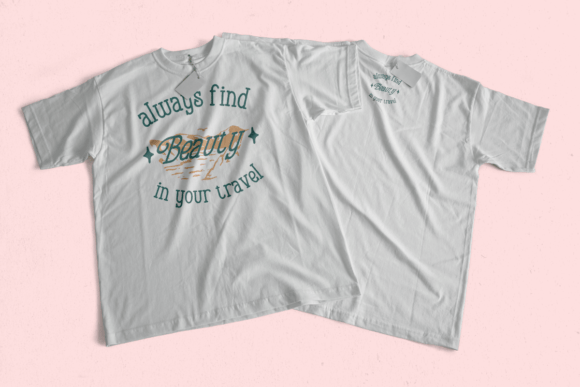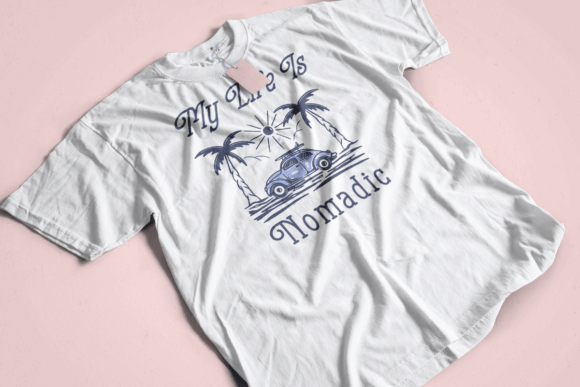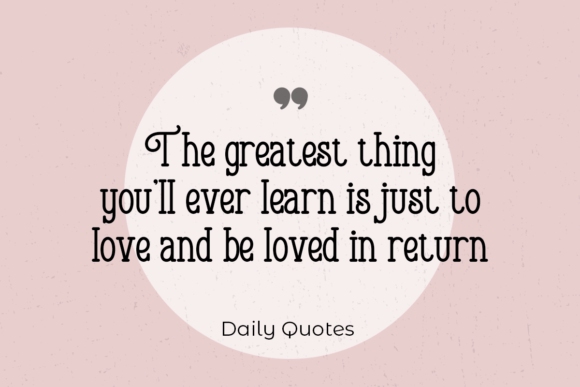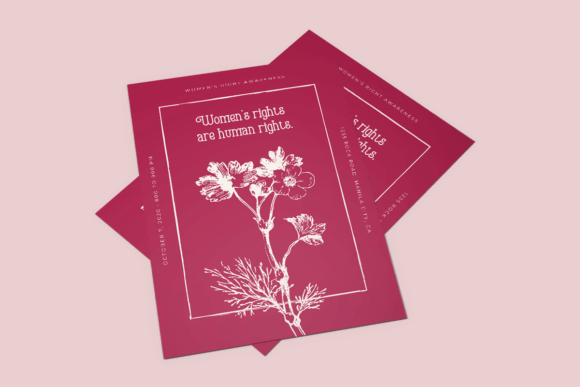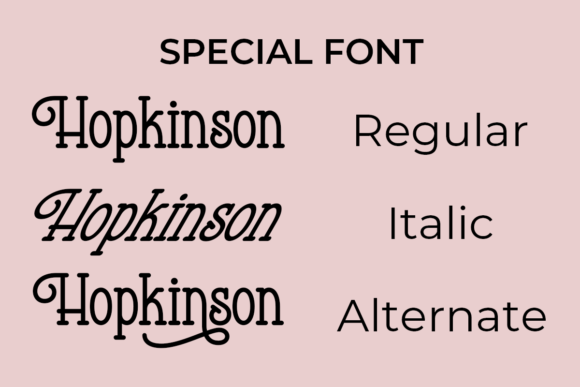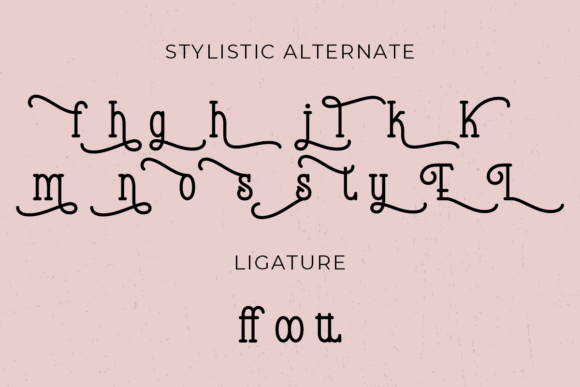
The Perfect Blend of Casual and Sophisticated: Introducing the Hopkinson Font
Have you ever stumbled upon a font that makes you feel like you’re home? For designers, finding the right font can be a game-changer. It’s that moment when you’re working on a project, and the perfect typography just clicks – and that’s exactly what happens when you meet the Hopkinson Font.
This charming contemporary serif font is hand-drawn to give it a casual, playful feel that’s perfect for branding projects, photography, and blog posts. The friendly, open lines and curves of the Hopkinson Font make it a valuable addition to any designer’s toolkit, allowing them to add a touch of personality to their work. With its PUA encoding, accessing all the glyphs and ligatures is a breeze, making it a great choice for designers looking to elevate their projects.
Hopkinson Font Key Features
- Font Family: Hopkinson is a serif font family designed for body text and display use. It is available in a range of weights and styles.
- Character Set: The font includes a comprehensive character set, including Latin, Greek, and Cyrillic alphabets, as well as punctuation and symbols.
- Size and Resolution: Hopkinson Font is designed for use at a range of sizes, from 8pt to 24pt, and is suitable for use at resolutions up to 1200 dpi.
- Unique Characteristics: Hopkinson Font features a distinctive, elegant design with refined details and subtle flair, making it suitable for use in high-end publications and designs.
Hopkinson Font Review
As a designer, I was excited to try out the Hopkinson font. In my experience, it has both its strengths and weaknesses, which I’ll outline below.
- Unique aesthetic: Hopkinson has a distinct, quirky feel that sets it apart from more traditional fonts. This can be a great choice for designers looking to add some personality to their work.
- Good legibility: While not perfect, the font is generally easy to read, even at smaller sizes.
- Large character set: Hopkinson includes a wide range of characters, including accented letters and symbols, making it a good choice for international projects.
- Limited line spacing: The font’s condensed nature can make it difficult to fit text into smaller spaces.
- Not ideal for body text: While Hopkinson can work well for headlines and titles, it’s not the best choice for larger blocks of text due to its quirky feel and limited legibility.
- May not be suitable for all audiences: The font’s unique aesthetic may not appeal to all users, particularly those who prefer more traditional or conservative typography.
Overall impression
Hopkinson is a fun, quirky font that can be a great choice for designers looking to add some personality to their work. However, it’s not a one-size-fits-all solution, and its limitations should be carefully considered before using it for larger projects or audiences.
Tips for Getting the Most Out of Hopkinson Font
Here are some tips to help you get the most out of Hopkinson Font:
- Use Hopkinson Font for headings and titles to add a touch of elegance.
- Pair Hopkinson Font with other fonts to create a unique and interesting typography.
Here are some common use cases for Hopkinson Font:
- Business cards and brochures.
- Distressed textures to give it a vintage feel
- High-quality images of classic dishes
- Gold or silver foil accents to add luxury
- Leather textures to give it a rugged feel
- Intricate illustrations of gears and clockwork mechanisms
- Gold or copper foil accents to add a touch of luxury
- Floral textures to give it a romantic feel
- Elegant illustrations of flowers and leaves
Hopkinson Font FAQs
What is the Hopkinson Font and where can I use it?
The Hopkinson Font is a sans-serif typeface designed for digital use. It is a highly legible font suitable for body text, headings, and titles in various applications, including digital signage, web design, and print media. You can use the Hopkinson Font in any software that supports OpenType font files, such as Adobe Creative Cloud, Microsoft Office, or Google Docs.
To use Hopkinson Font in this project, create a custom journal cover with a combination of leather and metal elements and pair the font with intricate illustrations.
Combine Hopkinson Font with other design elements like:
Project 3: Whimsical Wedding Invitation
The Hopkinson Font adds a touch of whimsy and romance to this wedding invitation project.
To use Hopkinson Font in this project, create a custom invitation with a floral background and pair the font with elegant illustrations of flowers and leaves.
Combine Hopkinson Font with other design elements like: